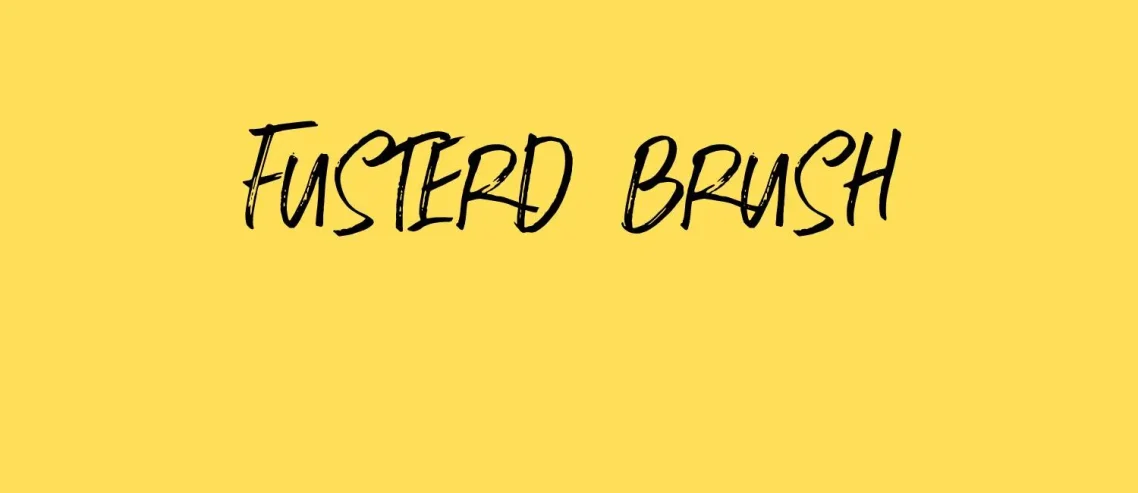
Fusterd Brush Font is a dynamic and energetic typeface that mimics the strokes of a brush. This font is perfect for projects that require a bold and expressive look, such as posters, banners, and artistic designs.
Fusterd Brush Font’s textured and hand-painted appearance adds a sense of spontaneity and creativity to your text, making it a compelling choice for those seeking a vibrant and artistic typographic style
Font Family
- Fusterd Brush Regular
- Fusterd Brush Two
- Fusterd Brush Bonus
Name | Fusterd Brush Font |
Designer | Ijemrockart |
Style | Brush |